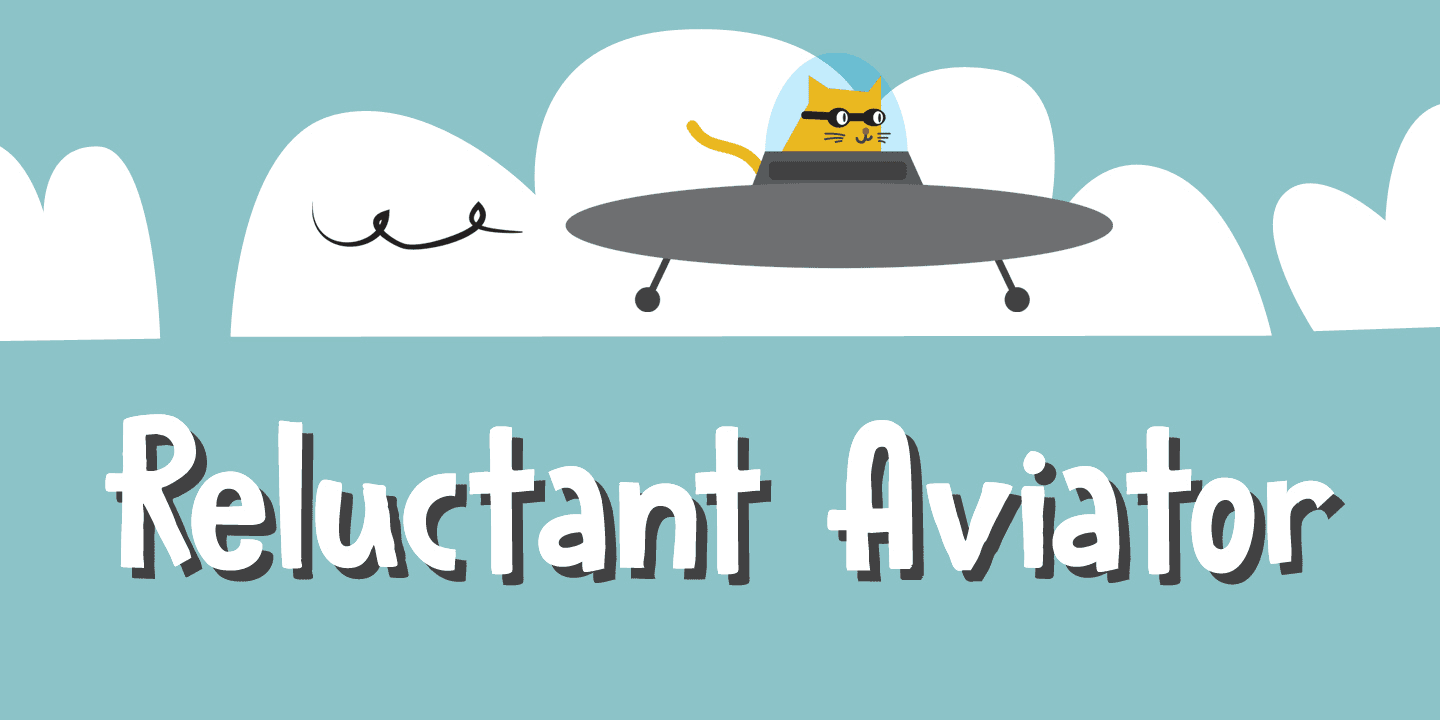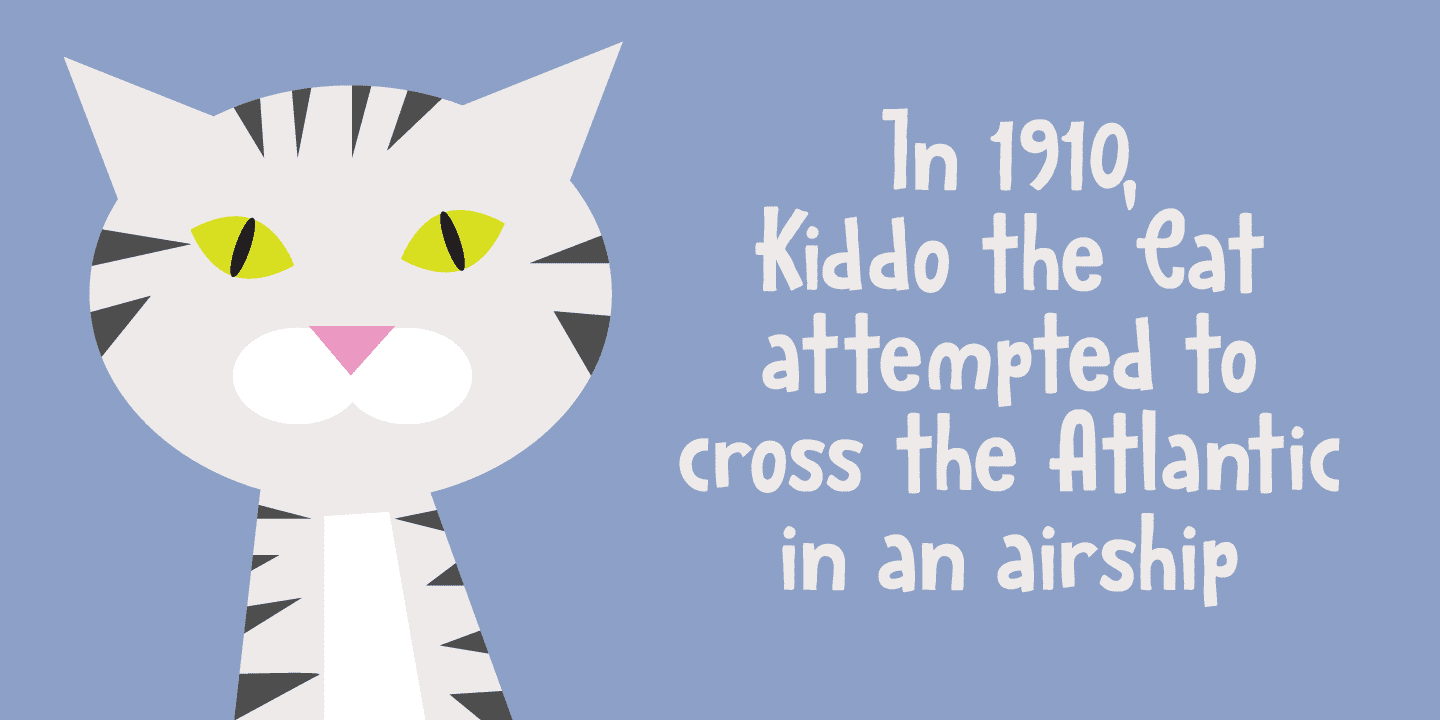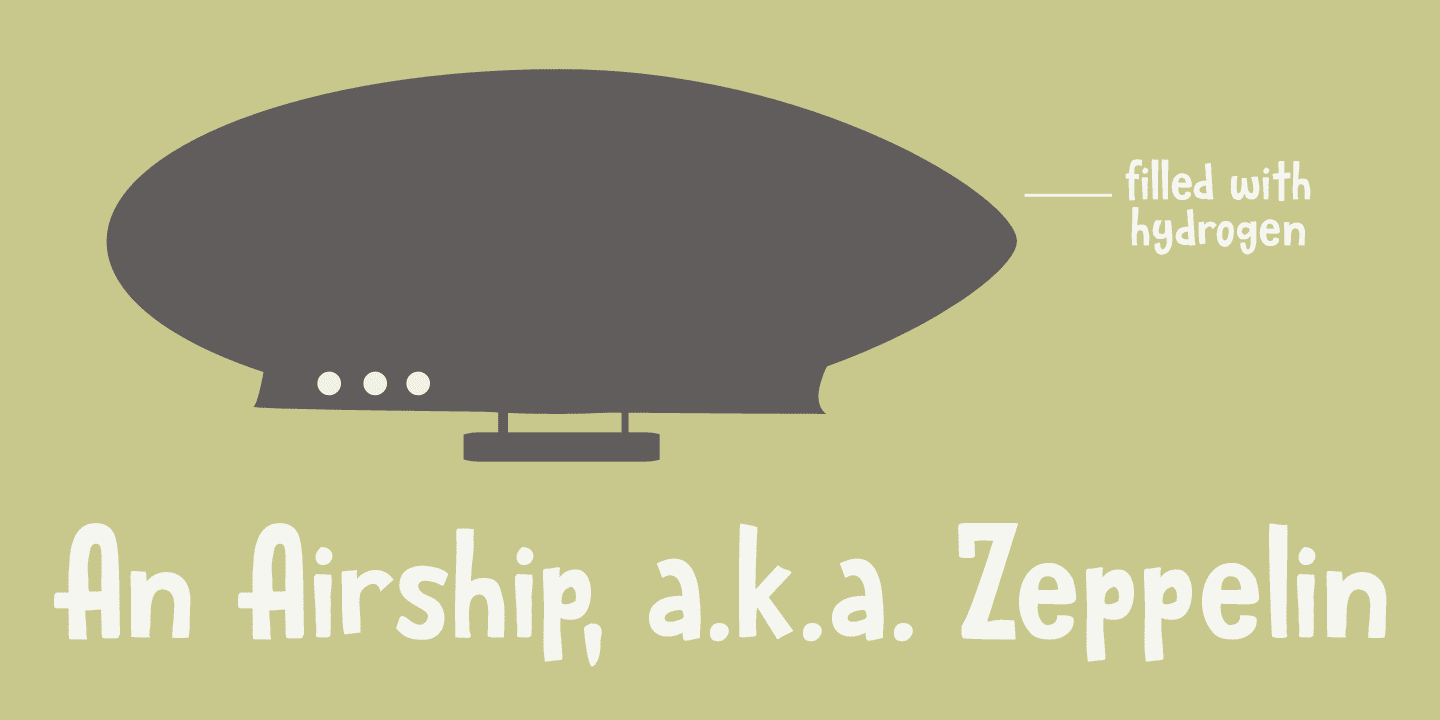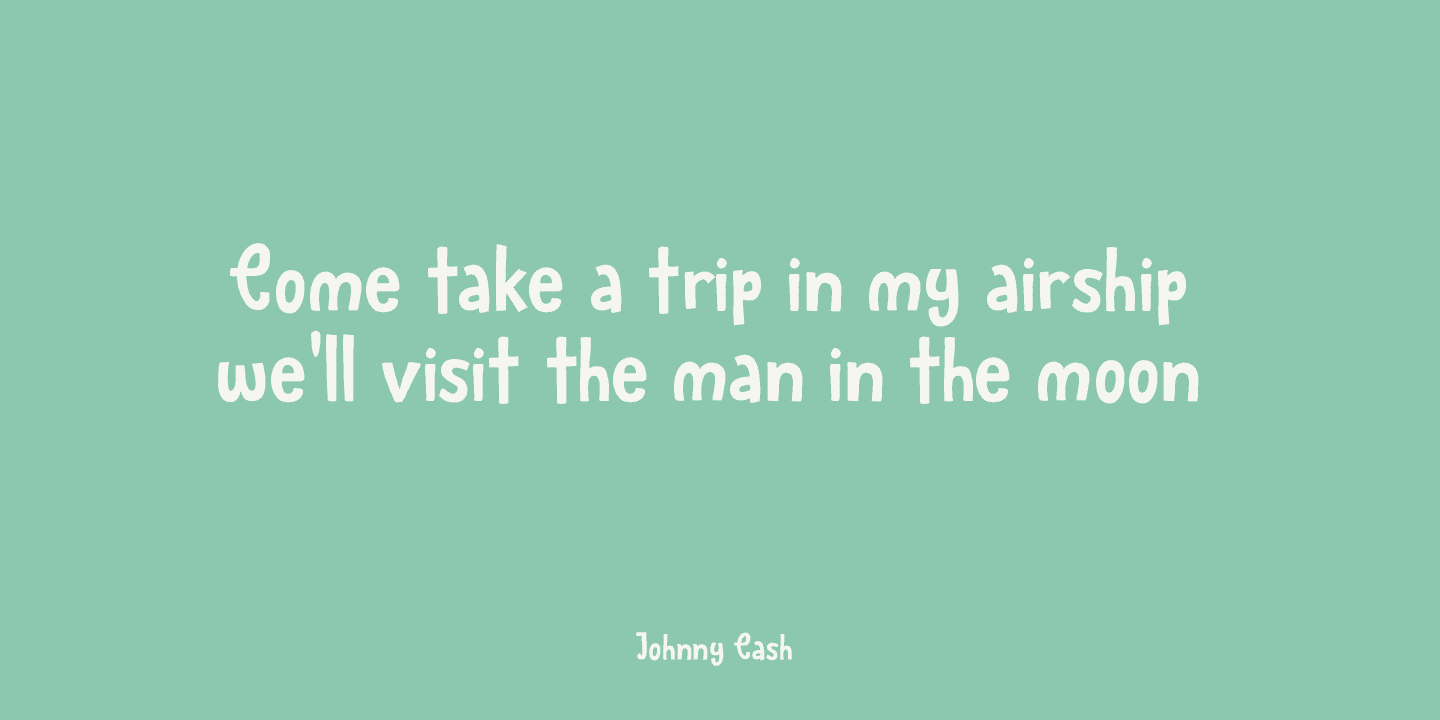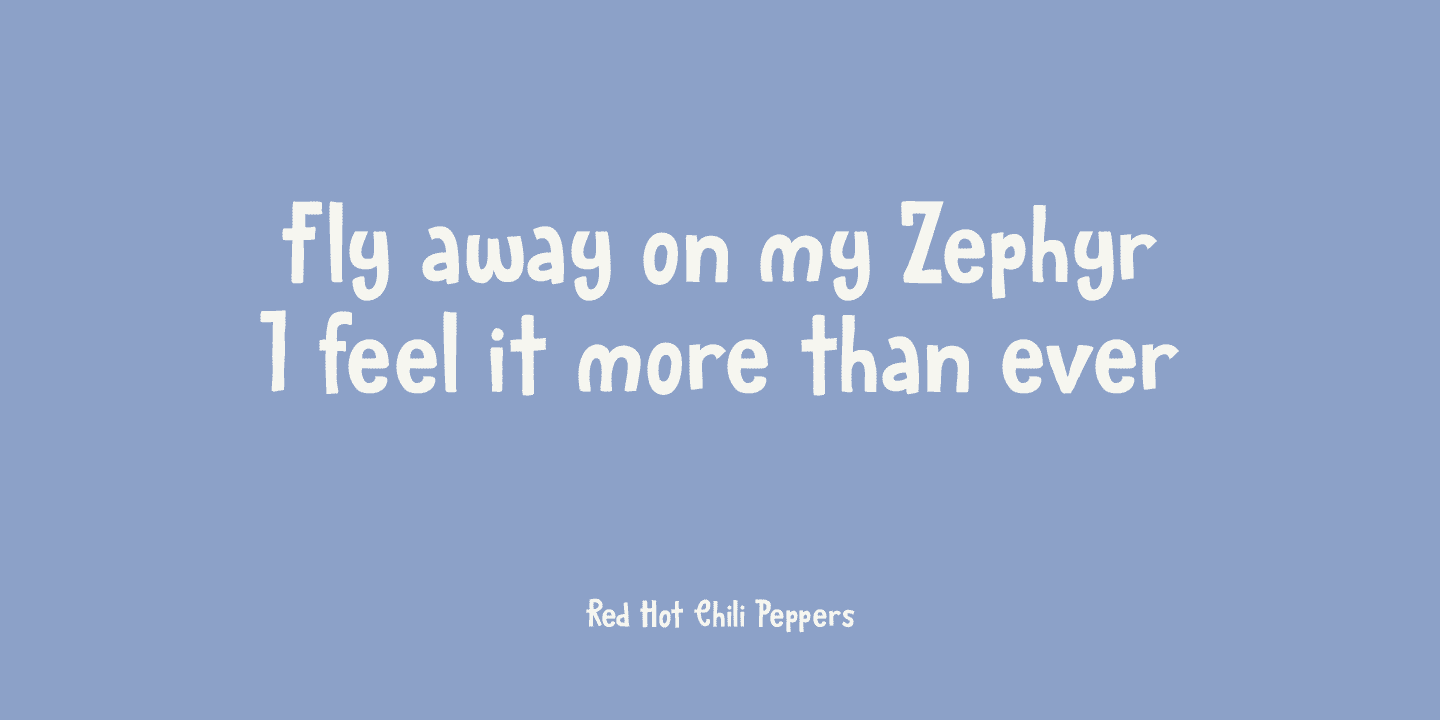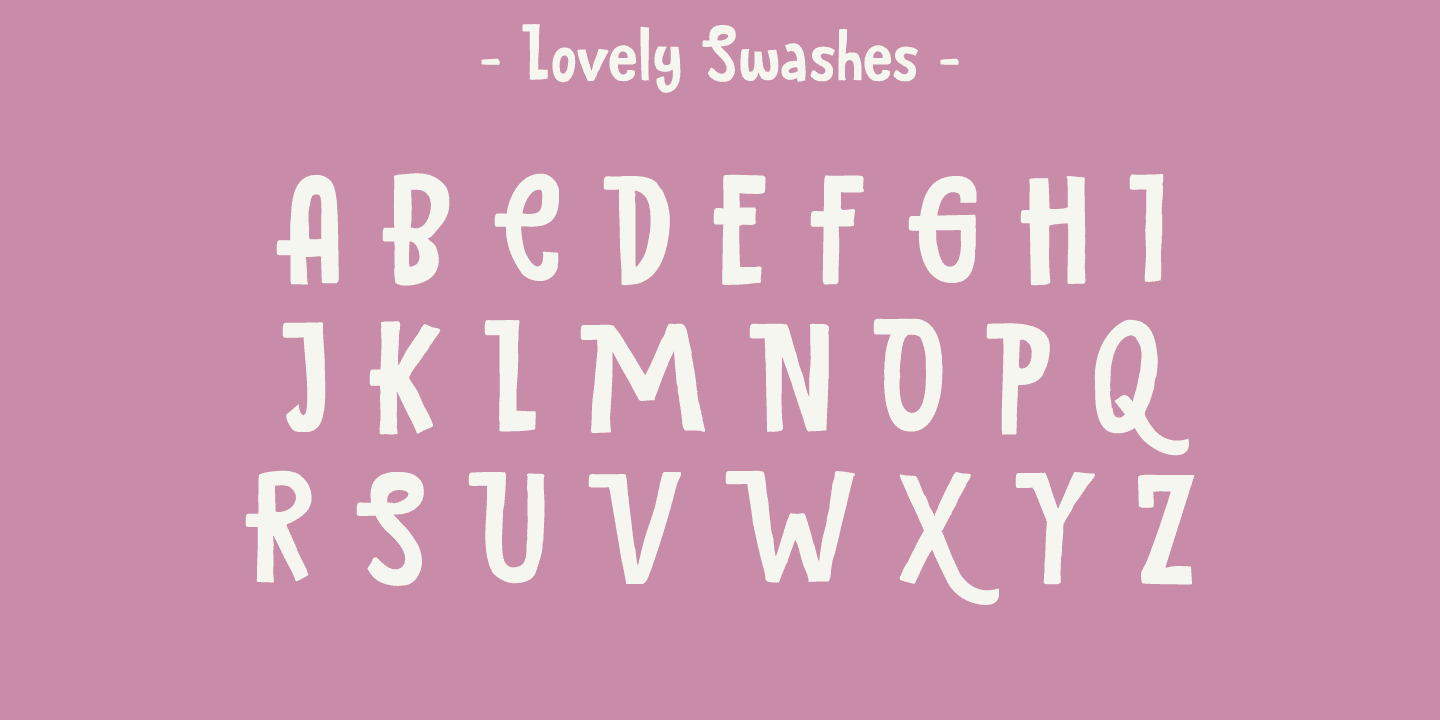
Reluctant Aviator Family (2 fonts)
It was a funny story, so I decided to name a font after it. Reluctant Aviator is a handmade font (pen and paper). It has a rough edge, some shaky glyphs and a lot of bravado. Comes with diacritics and swashes.